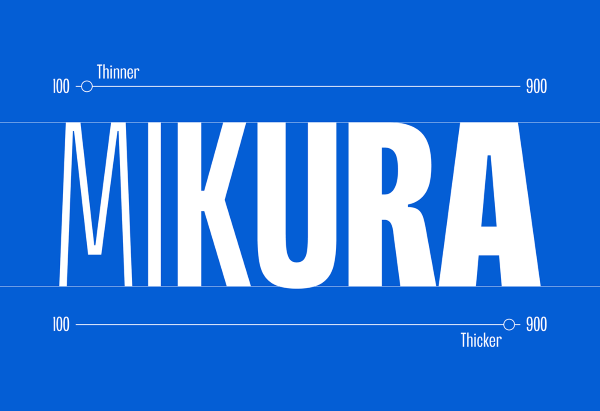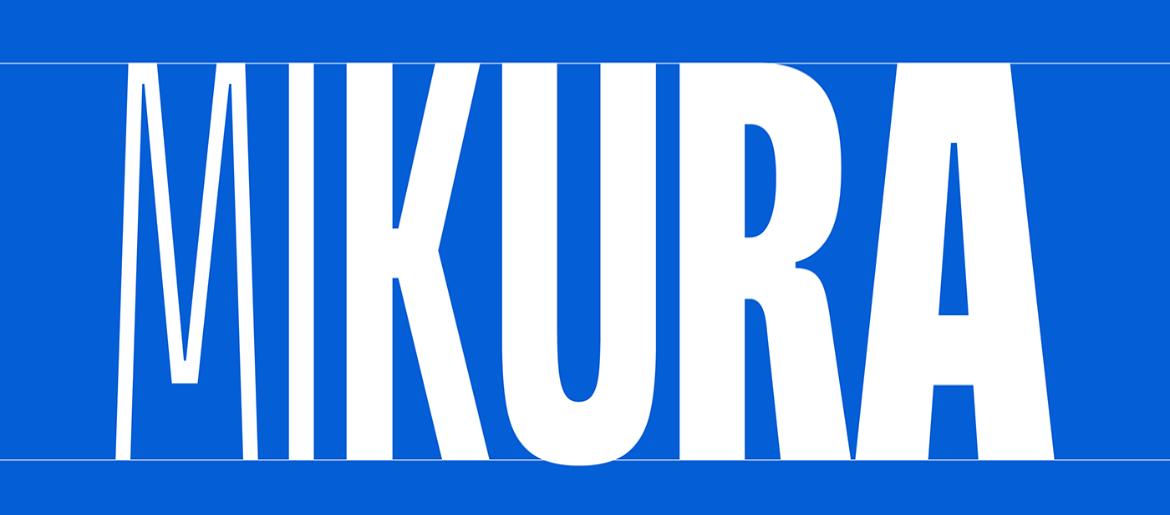
SG Mikura Font
SG Mikura by Studio Gulden is a variable sans serif font that redefines what contemporary type can do. Built across 9 meticulously crafted weights and carrying over 600 carefully drawn glyphs, it moves effortlessly between elegant restraint and commanding presence. The variable axis gives designers fluid control over weight and expression — making it equally at home in editorial layouts, brand identities, packaging, and digital interfaces. Versatile by design, powerful by nature.